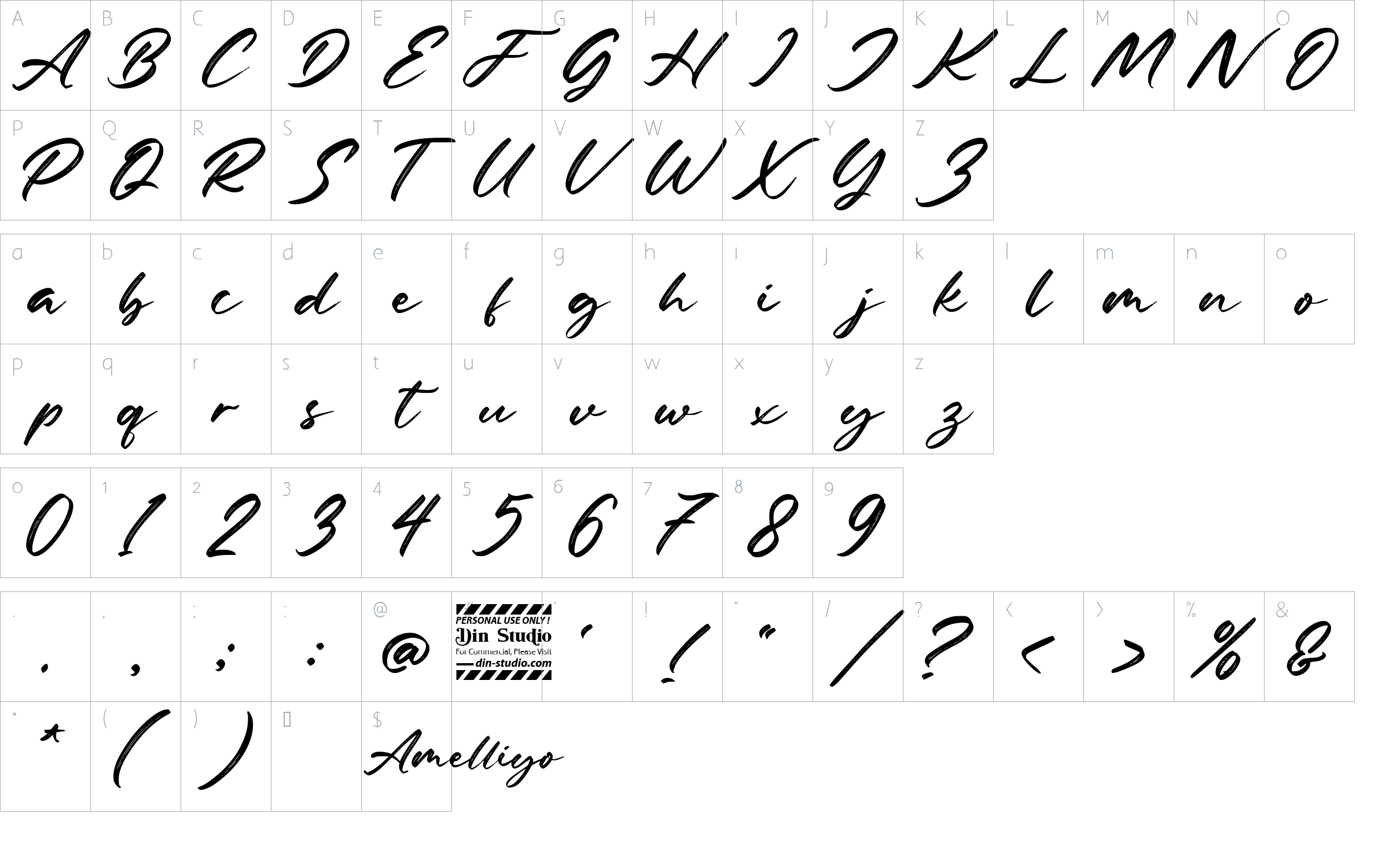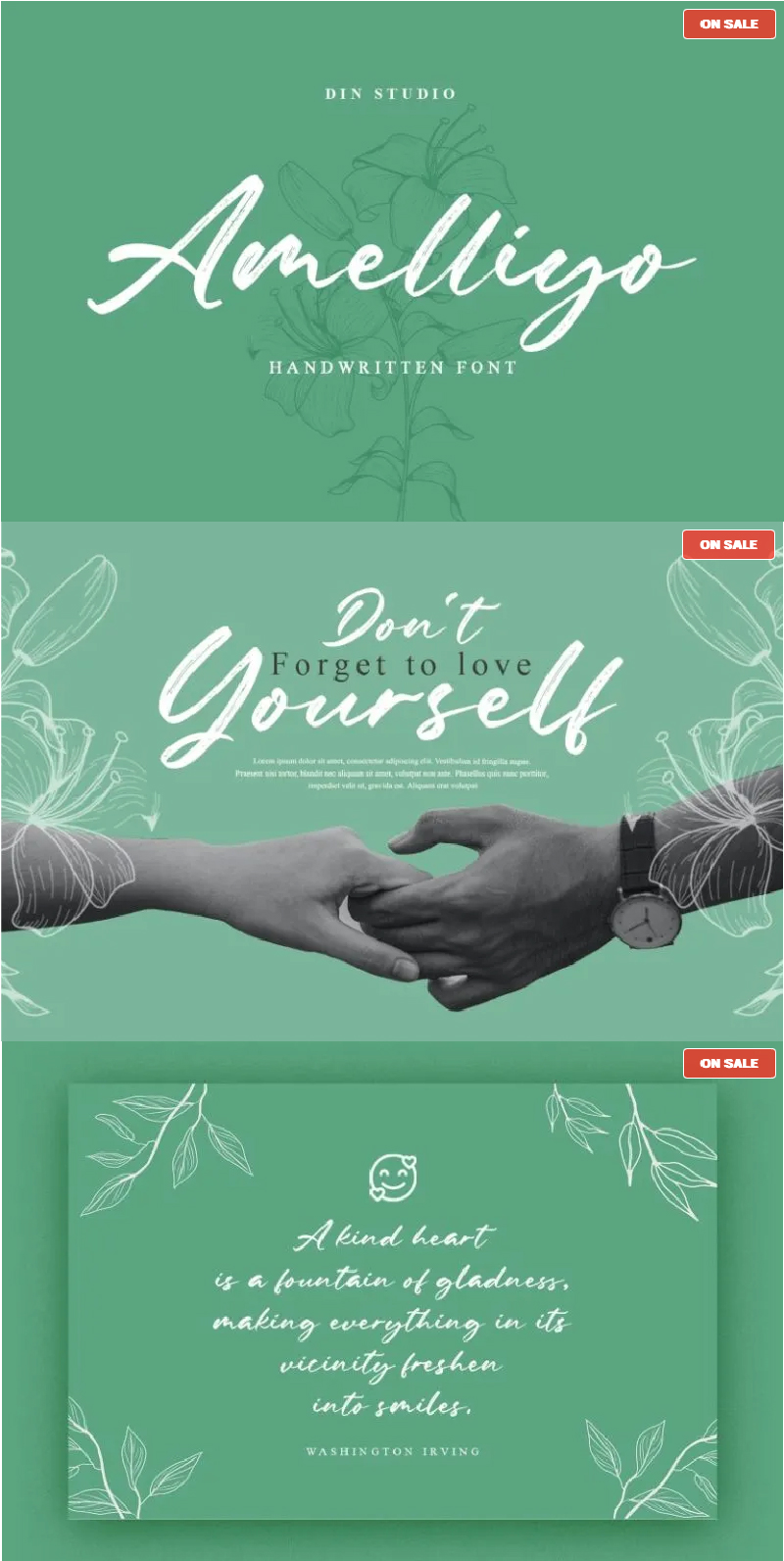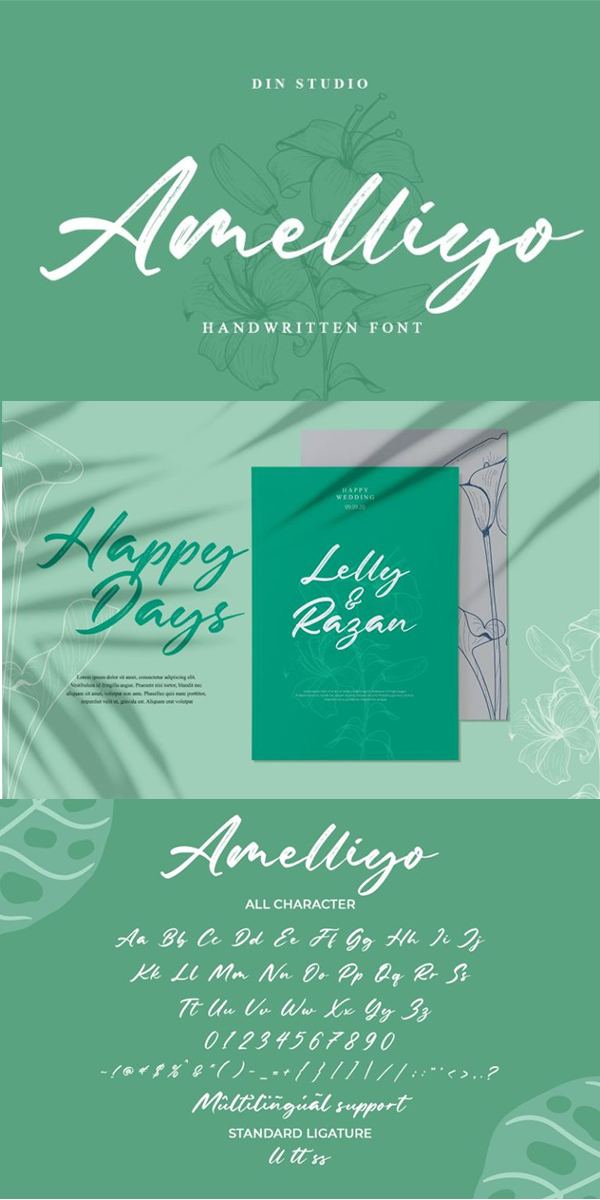
Amelliyo Font
About Amelliyo
Amelliyo is a classy handwritten font. Made for any professional project branding. It is the best for logos, branding and of quotes. Every letter has a unique and beautiful touch. See the previews above to get some inspiration on how you can use them. Enjoy the font!